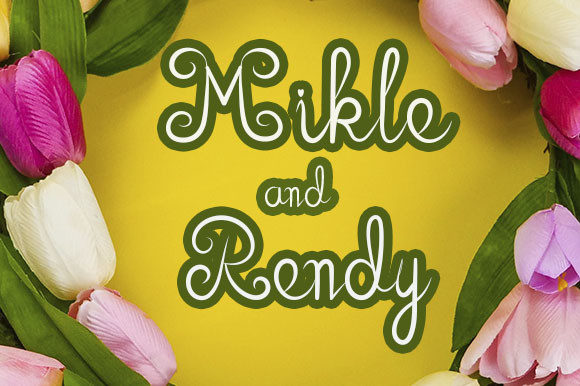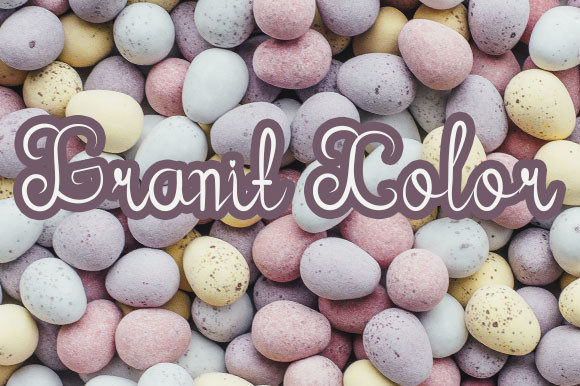
Introducing Banana Shake Font: The Cute and Whimsical Handwritten Font You Need
Are you tired of using the same old fonts in your designs? Do you want to add a touch of whimsy and playfulness to your creations? Look no further than Banana Shake Font, a delightful handwritten font that’s sure to become a favorite in your font library. In this article, we’ll dive into the features and benefits of Banana Shake Font, and explore how it can elevate your designs to the next level.
A Cute and Whimsical Handwritten Font
Banana Shake Font is a beautifully crafted handwritten font that exudes a sense of fun and playfulness. Its lovely style is perfect for a wide range of design projects, from children’s books and educational materials to branding and marketing campaigns. The font’s unique character and charm make it an excellent choice for designers who want to add a personal touch to their work.
One of the standout features of Banana Shake Font is its versatility. Whether you’re creating a design for a kids’ party, a food blog, or a fashion brand, this font will adapt seamlessly to your project’s tone and style. Its friendly and approachable vibe makes it an excellent choice for designs that need to connect with a wide audience.
Why Banana Shake Font is a Valuable Asset to Your Font Library
Banana Shake Font is more than just a pretty font – it’s a valuable asset to your font library. Here are just a few reasons why:
- Unique Character: Banana Shake Font has a distinct personality that will set your designs apart from the crowd. Its whimsical style is sure to grab attention and leave a lasting impression.
- Versatility: This font is incredibly versatile and can be used for a wide range of design projects. Whether you’re creating a logo, a brochure, or a social media post, Banana Shake Font will adapt to your needs.
- Ease of Use: Banana Shake Font is easy to read and works well in both digital and print formats. Its clear and legible style makes it perfect for body text, headings, and titles.
How to Use Banana Shake Font in Your Designs
Banana Shake Font is easy to use and can be incorporated into your designs in a variety of ways. Here are a few ideas to get you started:
- Pair it with Bold Fonts: Combine Banana Shake Font with bold, modern fonts for a striking contrast that will add visual interest to your designs.
- Use it for Headings: Banana Shake Font is perfect for headings and titles. Its playful style will add a touch of whimsy to your designs and grab attention.
- Add it to Your Branding: Use Banana Shake Font as part of your branding identity to add a personal touch and create a memorable impression.
Tips and Tricks for Getting the Most Out of Banana Shake Font
To get the most out of Banana Shake Font, here are a few tips and tricks to keep in mind:
- Experiment with Colors: Banana Shake Font looks great in a variety of colors. Experiment with different hues and combinations to find the perfect match for your design.
- Play with Size: Don’t be afraid to experiment with different font sizes. Banana Shake Font works well in both large and small sizes, so don’t be afraid to get creative.
- Mix and Match: Combine Banana Shake Font with other fonts and graphics to create a unique and eye-catching design.
| Author | Almahyra Studio |
In conclusion, Banana Shake Font is a delightful handwritten font that’s sure to become a favorite in your font library. Its cute and whimsical style makes it perfect for a wide range of design projects, from children’s books to branding and marketing campaigns. With its versatility, ease of use, and unique character, Banana Shake Font is an incredibly valuable asset to any designer or crafty enthusiast. So why not give it a try and see how it can elevate your designs to the next level?